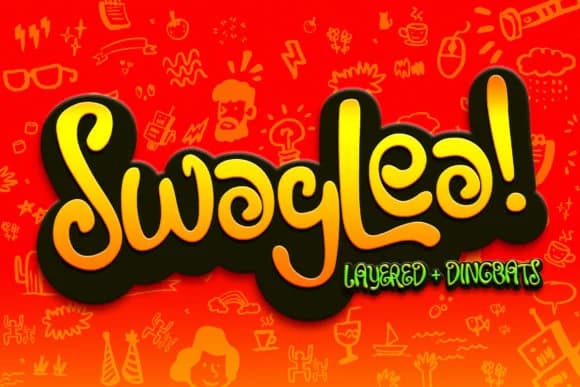
Swaylea Font by 160 Studio is a bold, loose-flowing script that brings genuine street-level energy to contemporary design work. It's the kind of typeface that feels handmade but reads with real confidence, trading formality for personality. The letterforms have character to spare, with natural quirks and uneven baselines that feel alive on the page rather than sterile or digitally perfect.
This makes Swaylea a natural fit for skateboard graphics, streetwear branding, music event promotions, and urban poster campaigns where visual punch and attitude matter more than polished perfection. It works equally well for hip-hop branding, street culture design, and apparel label work where you want a youthful, unrefined voice that speaks directly to your audience without pretense. The included dingbats and outline variations give you creative flexibility to layer effects, build decorative elements, or stack multiple weights within the same family for rich visual depth.
Record covers, event flyers, and statement graphics for youth-facing brands all benefit from Swaylea's raw, urban energy without sacrificing legibility. The varied letterforms and natural imperfections actually strengthen readability by giving each character its own distinct shape and visual weight. Grab Swaylea Font on Creative Fabrica and bring authentic character to your next project.
Swaylea Font is a script font that shines as a display or heading face. Pair it with a clean sans-serif or serif font for body text β the contrast creates a clear hierarchy while the two styles stay balanced and easy to read.